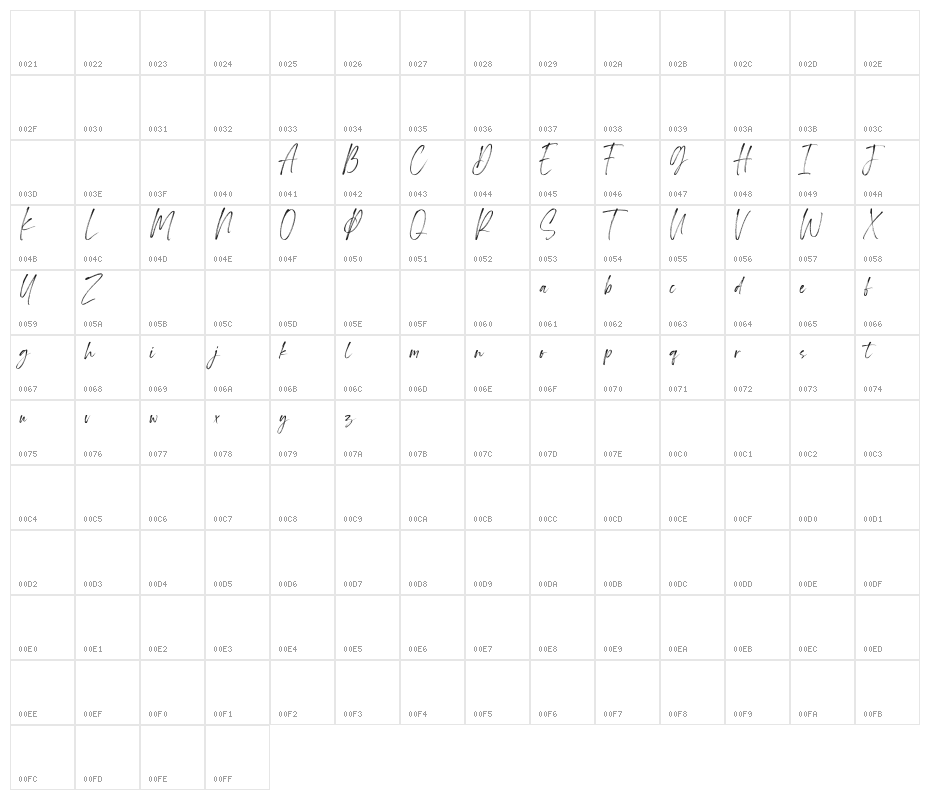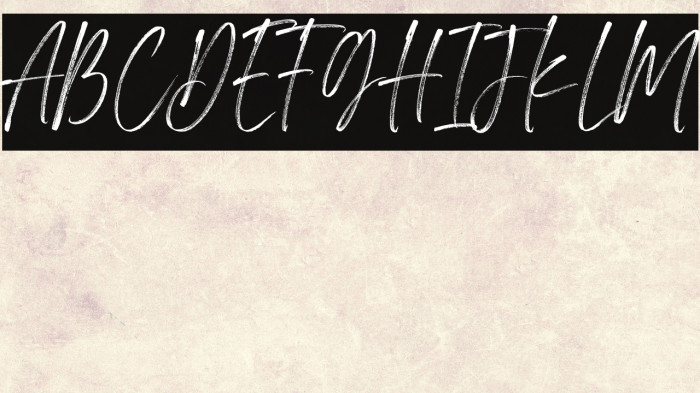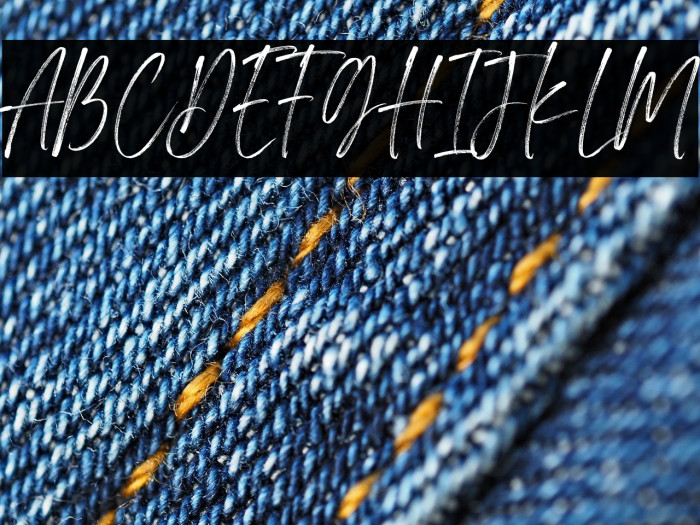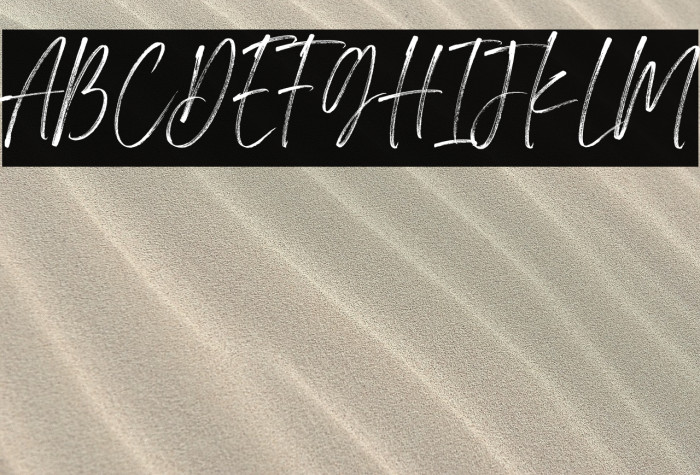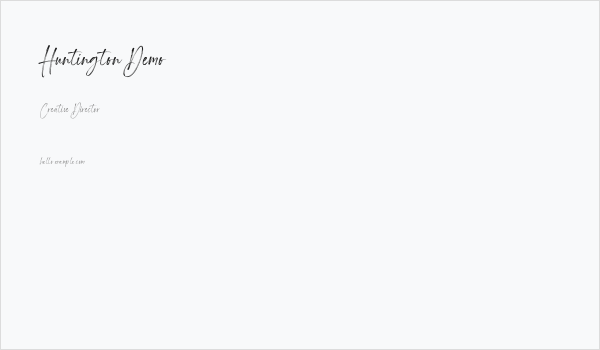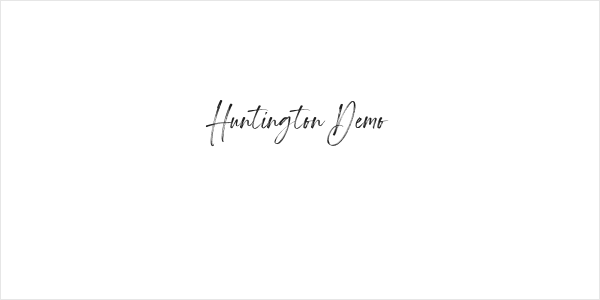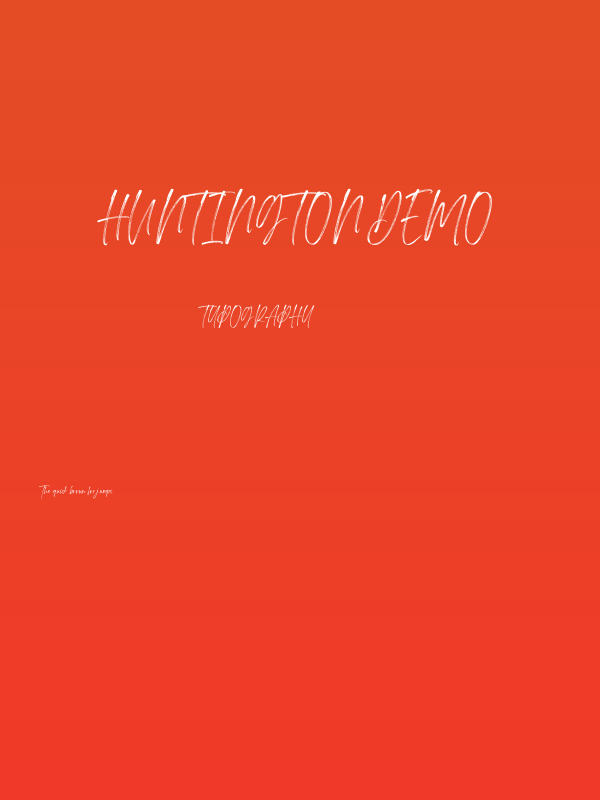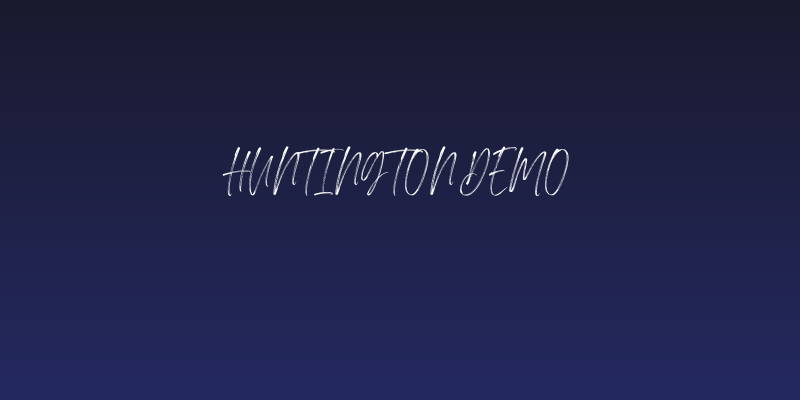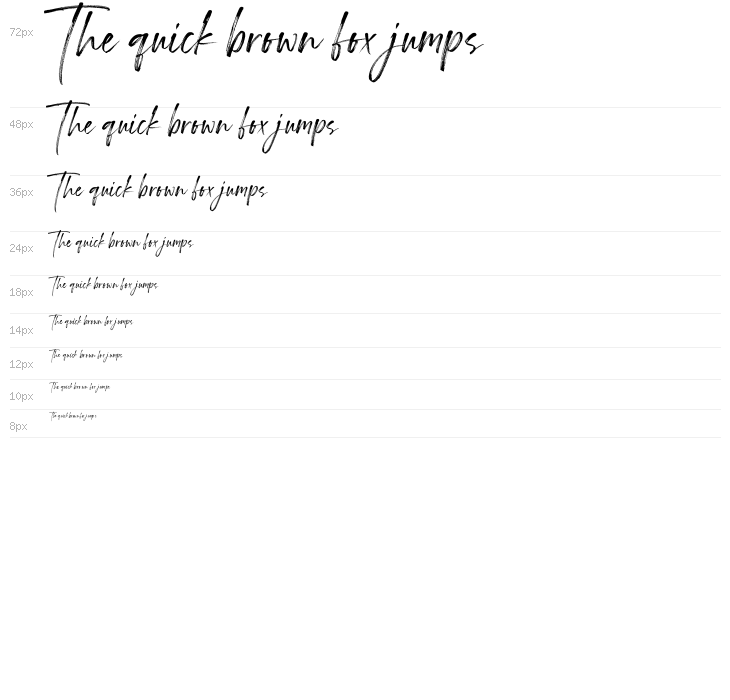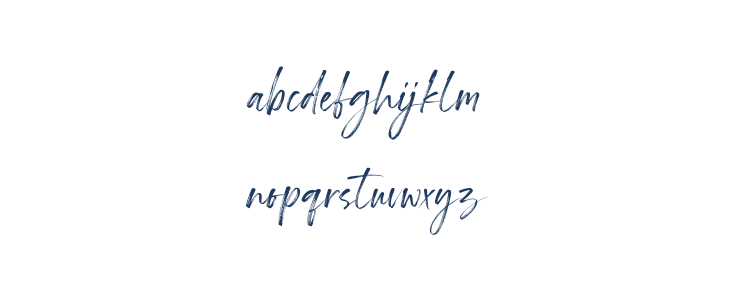
Huntington Demo Font
Huntington Demo Description
This font features a dynamic and expressive handwritten style, characterized by its fluid and organic strokes. The letters exhibit a natural flow, with varying thickness that adds a sense of movement and energy. The uppercase letters are bold and prominent, while the lowercase letters maintain a more delicate and subtle appearance. The overall texture is slightly rough, giving it an authentic and personal touch. This font is ideal for projects that require a personal, artistic, or informal feel, such as invitations, greeting cards, or creative branding.
| Proposed Projects | Ideal for invitations, greeting cards, creative branding, and artistic projects. |